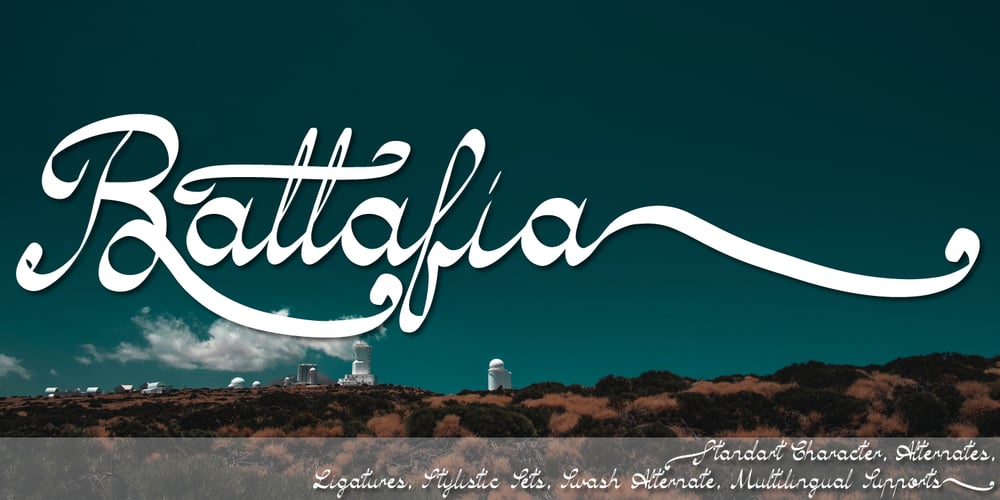
Battafia
Battafia font
Battafia Font Family was designed by Fauzul Azmi and published by PojolType. Battafia contains 1 styles and family package options. My font name is Battafia. This font is usually used for brands, greeting for someone, T-shirt design, nameplate, pins, accessories, film titles, magazine titles, web, posters, book titles, logos, country names, billboards, advertisements, book writing, products, display, and many others.Battafia, offers you:1. Alternative uppercase (all uppercase, 1 model)2. Lowercase character 12 letters, usually used in end letters3. Ligature (1 two-letter character) and Alternative Styles4. Multilingual Support (Europe Latin West), Numbers and Punctuation